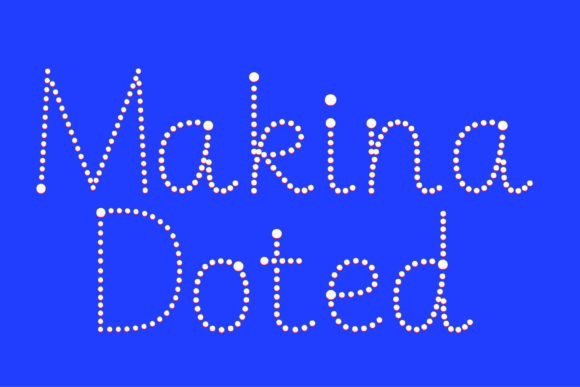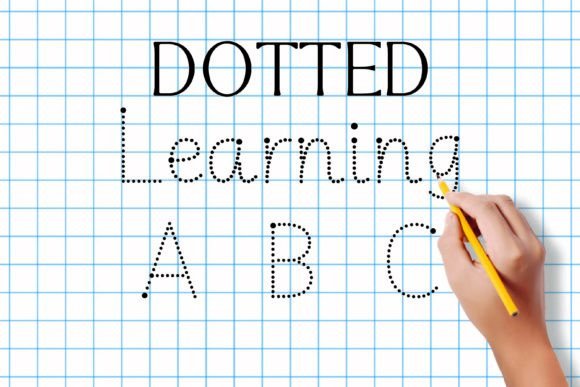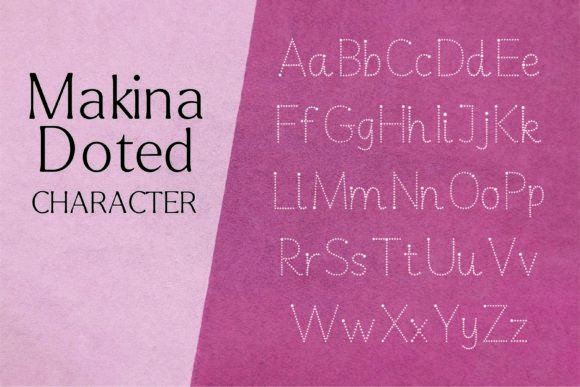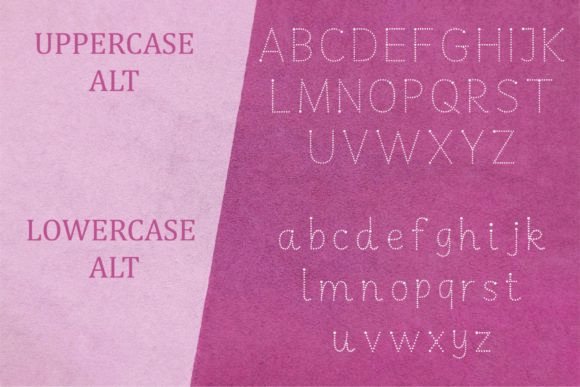
Makina Doted Font
About Makina Doted Font
“Makina Doted” is a font designed to help create engaging and interactive worksheets for learning the print alphabet. This font serves as a valuable learning resource for individuals who aim to teach or learn the print alphabet in an enjoyable and interactive way.
The font’s design incorporates dots and patterns that can be used to create a wide variety of worksheets, making it a versatile tool for educators and learners alike. Whether you’re focusing on letter recognition, handwriting practice, or other aspects of alphabet learning, “Makina Doted” provides a creative and engaging approach.
The font’s potential goes beyond just educational materials. It can be a valuable asset for designers, especially those working on projects related to education, early childhood development, or interactive learning. “Makina Doted” offers a unique and visually appealing style that can enhance various creations, from worksheets and printables to educational games and materials.
In summary, “Makina Doted” is more than just a font; it’s a resourceful tool for creating interactive and enjoyable print alphabet learning materials. Whether you’re an educator looking to make learning engaging or a designer seeking a font that adds creativity to educational projects, “Makina Doted” has the potential to enhance your creations and make the learning process more enjoyable and effective. Embrace the versatility of “Makina Doted,” and unlock the potential for interactive and engaging educational materials.